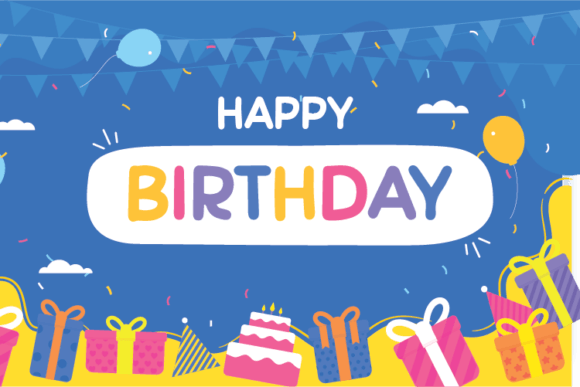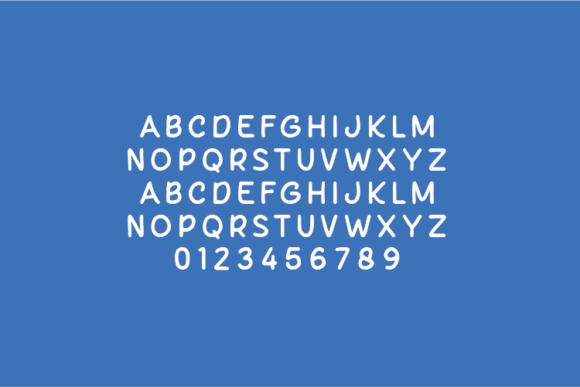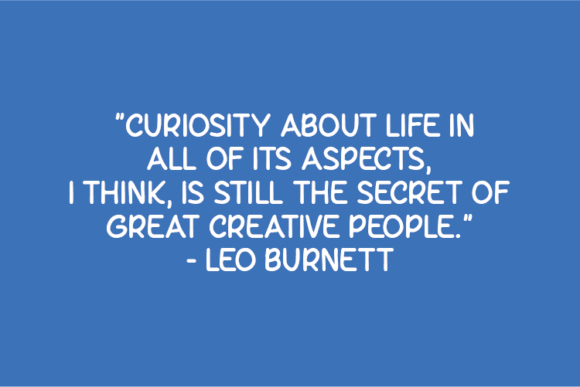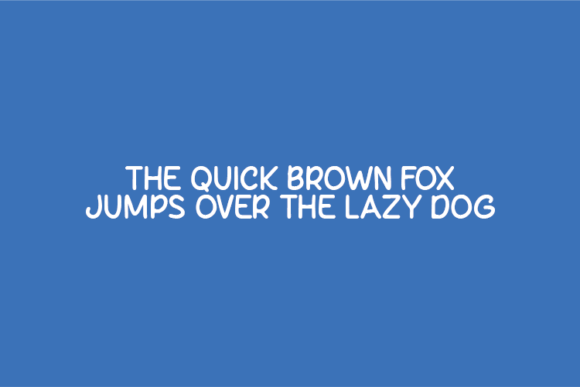
Happy Birthday Font
About Happy Birthday Font
“Happy Birthday” is a natural handwritten font created without altering a single node in each character’s indentation. This distinctive approach gives the font a unique and interesting quality, making it a perfect choice for a variety of design applications, including quotes, notes, t-shirts, and various product designs.
The font’s natural and unaltered design provides an authentic and handcrafted feel, capturing the essence of genuine handwriting. This characteristic makes “Happy Birthday” suitable for projects that require a personal and heartfelt touch.
Whether you’re working on expressive quotes that demand a distinctive presentation, creating notes with a natural and organic appearance, or designing t-shirts for a celebration, “Happy Birthday” stands out as a font that adds a layer of authenticity and charm.
The uniqueness of “Happy Birthday” becomes a key feature in its versatility, adapting well to different design contexts. The font’s distinctive character enhances the overall visual appeal of your designs, making it a valuable asset for your creative toolkit.
Imagine “Happy Birthday” gracing your projects, whether on heartfelt quotes, personal notes, or product designs that require an original touch. The font becomes more than just a typeface; it becomes a design asset that infuses your creations with a natural and interesting aesthetic.
In summary, “Happy Birthday” is a font that celebrates the beauty of natural handwriting, making it a standout choice for various design applications. Embrace its unaltered and unique design confidently, and let “Happy Birthday” be the typeface that adds a touch of originality and character to your creative projects, especially those related to birthday celebrations.